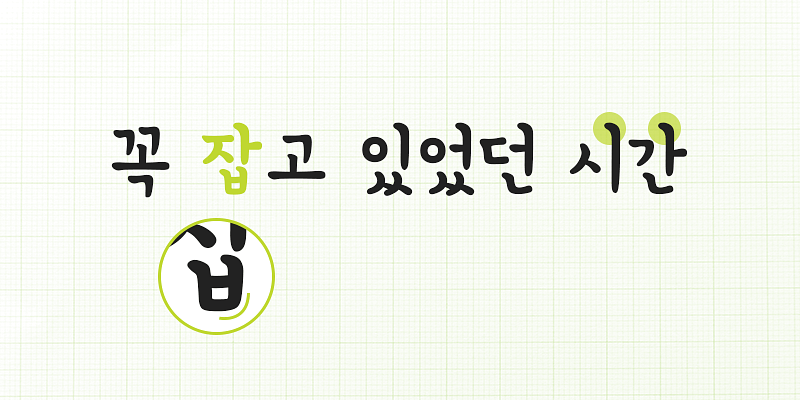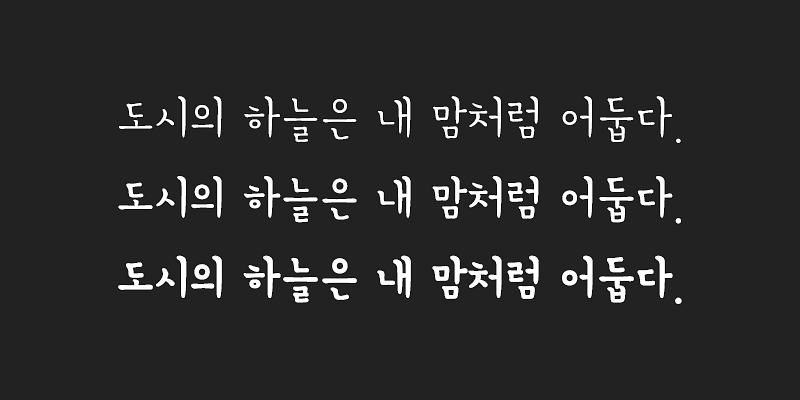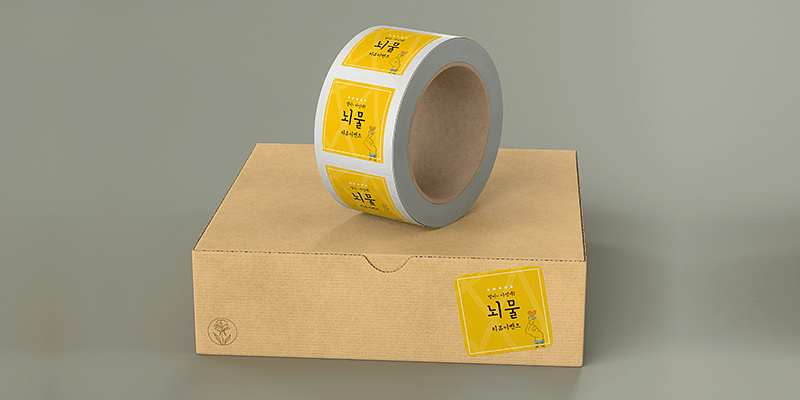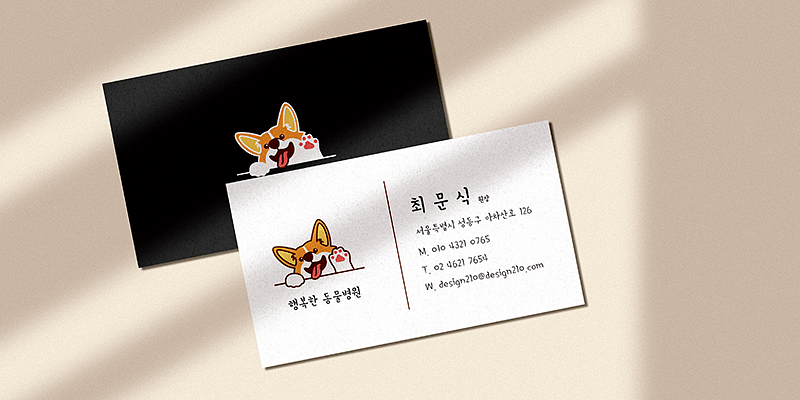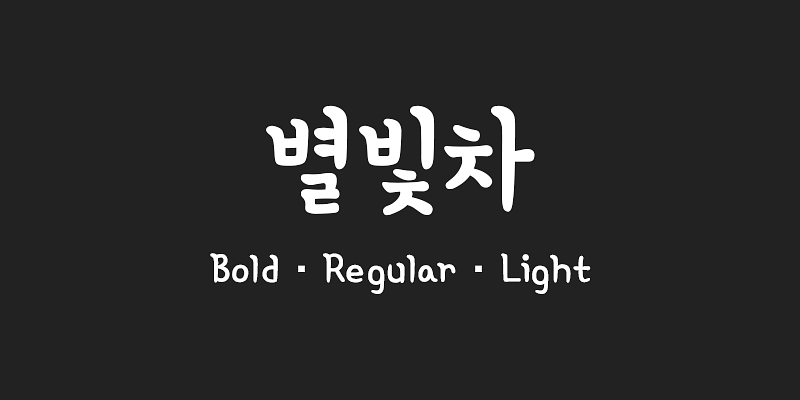
210 Byulbitcha is designed based on a style of calligraphy called Gung-che, used by the court ladies during the Joseon dynasty in Korea. This font is a modern interpretation, modified from the original vertical writing direction to be suitable for horizontal typesetting. Unlike the formal look of the original Gung-che, 210 Byulbitcha has a more casual feel that features soft curves and serifs, giving it a calm and refined look.